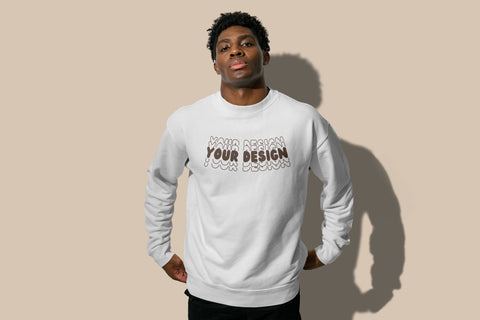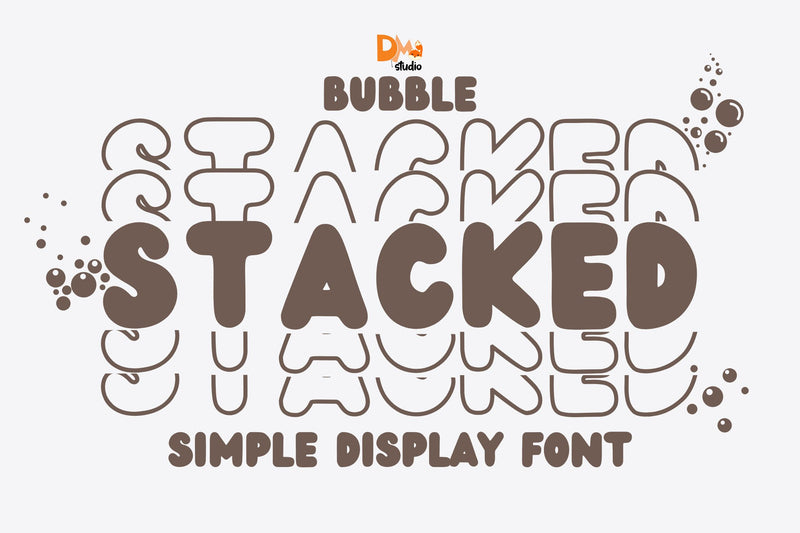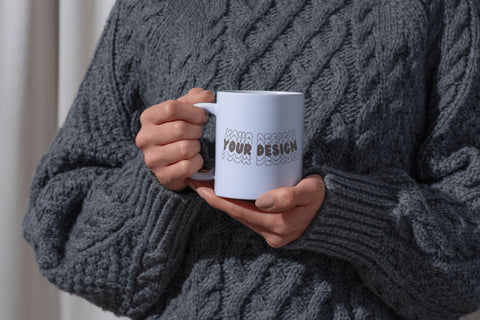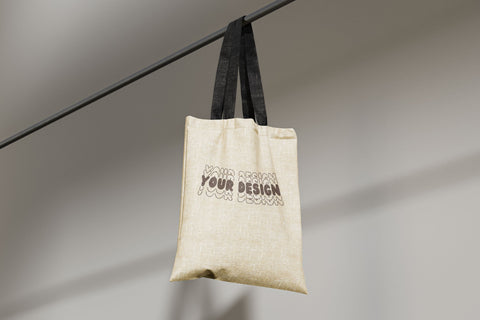
Bubble Stacked Font
Bubble Stacked Font is a fun and bubbly display typeface with a unique stacked effect, perfect for adding playful energy to your designs! Its rounded, bold letters create a dynamic and eye-catching look, making it ideal for children's projects, party invitations, branding, posters, and social media graphics. Whether you're designing for a cheerful event or want to bring a bold, whimsical vibe to your typography, Bubble Stacked Font is the perfect choice!
- Playful Stacked Design: Creates a bold and layered bubble effect.
- Perfect for Fun & Creative Projects: Great for kids’ designs, posters, social media, branding, and more.
- Bold & Eye-Catching: Ensures maximum impact in any design layout.